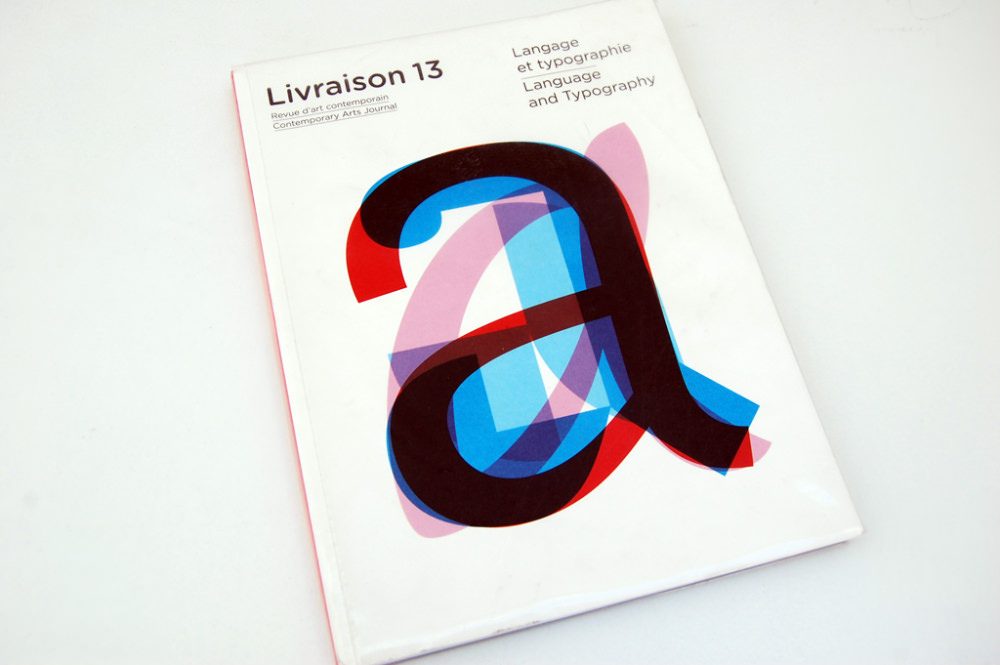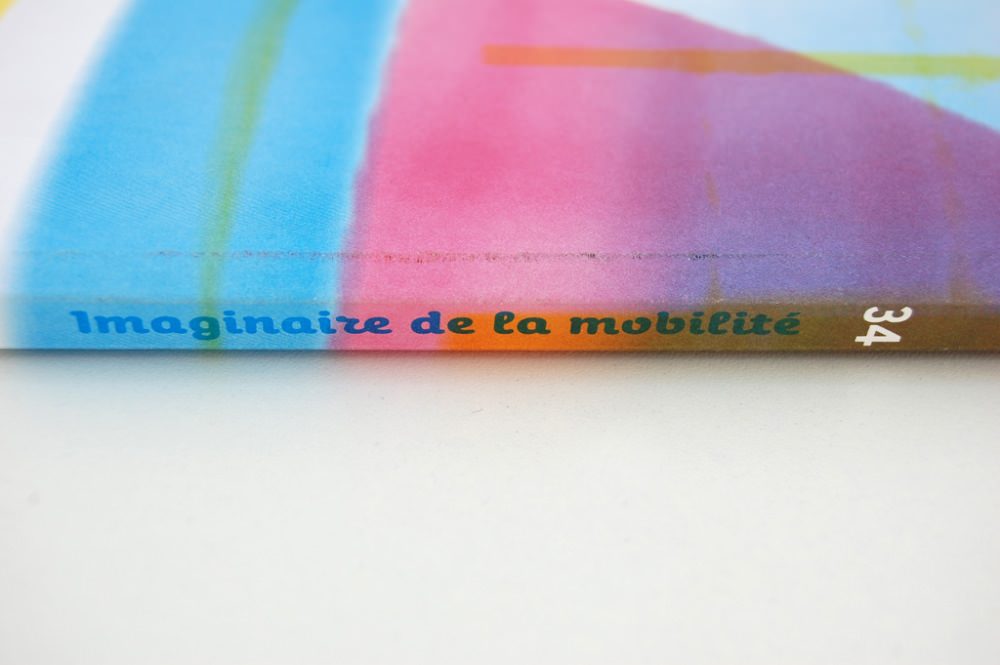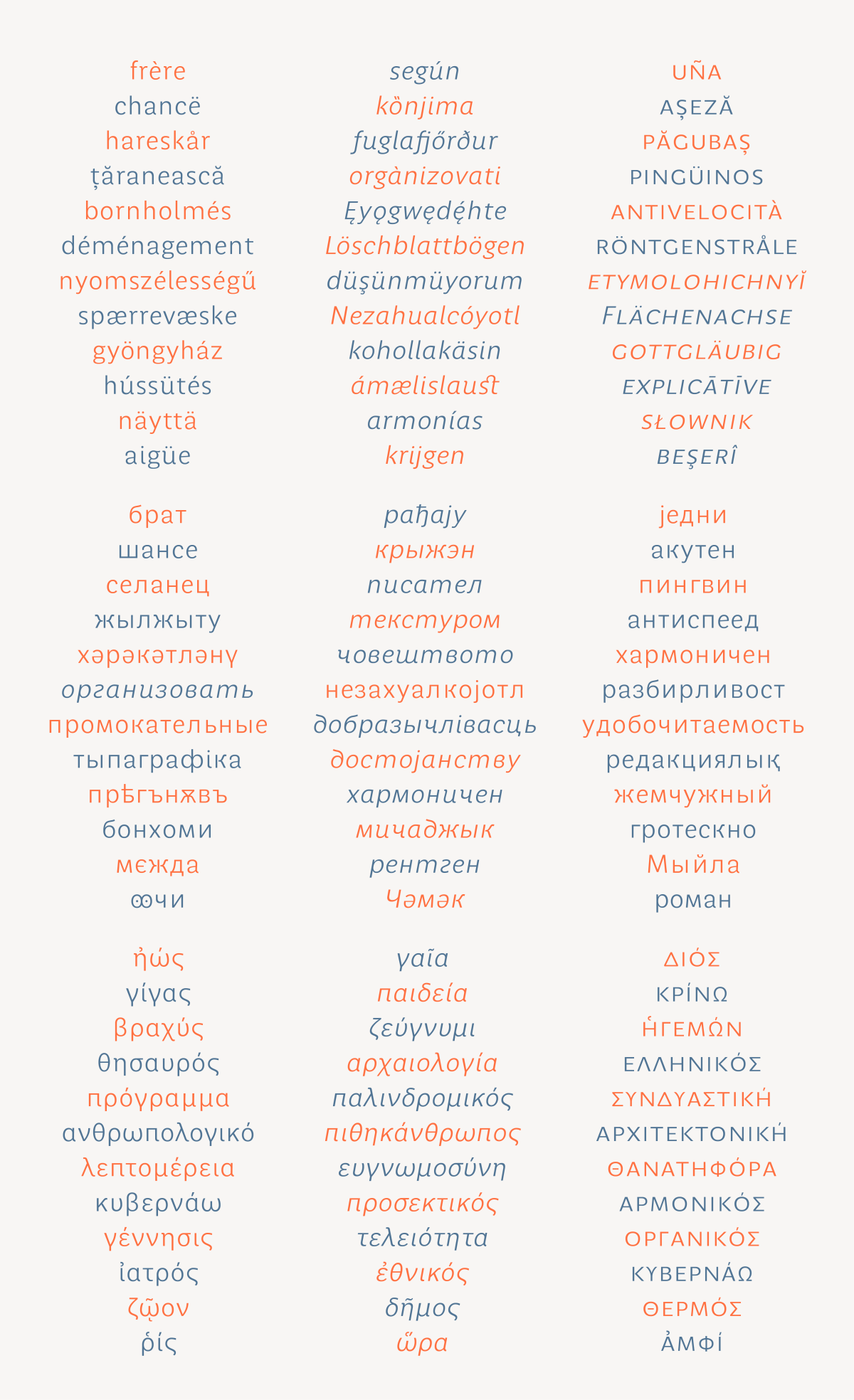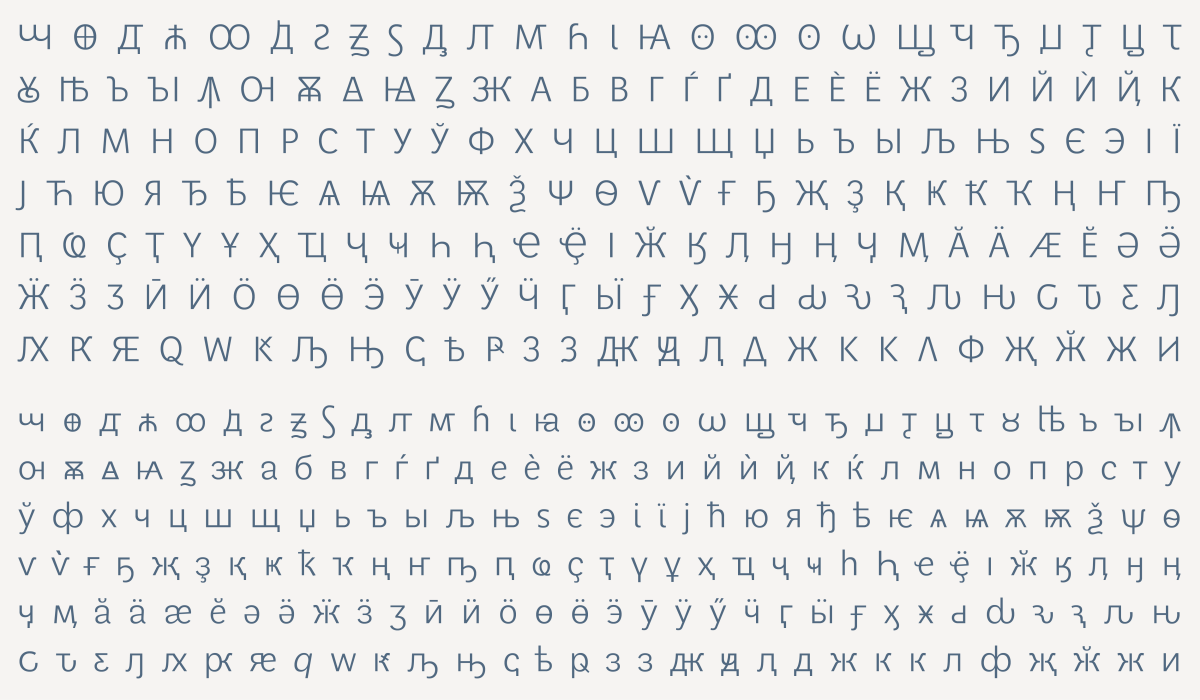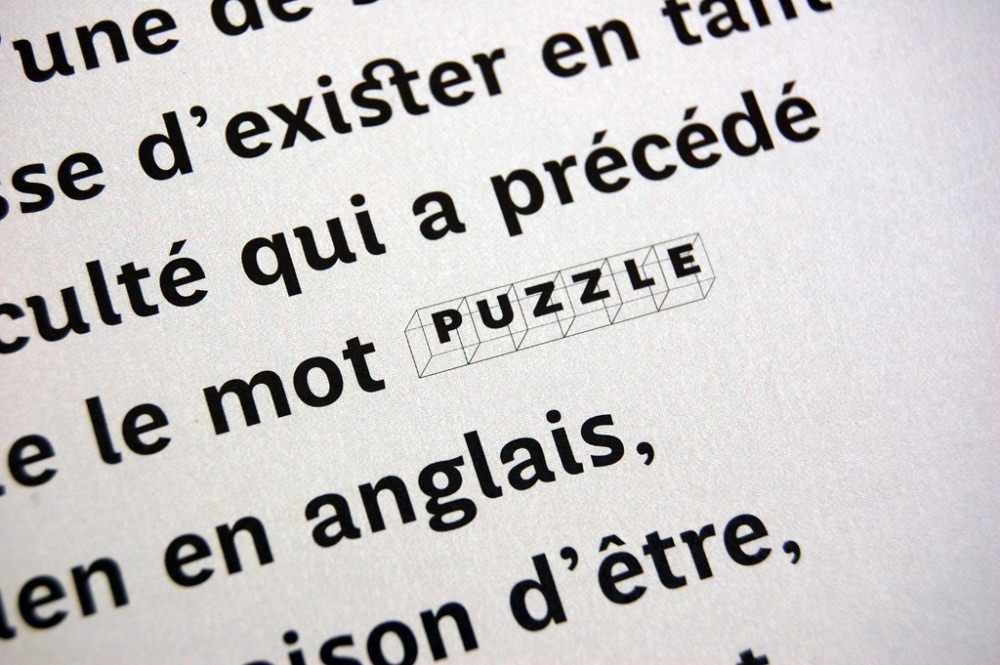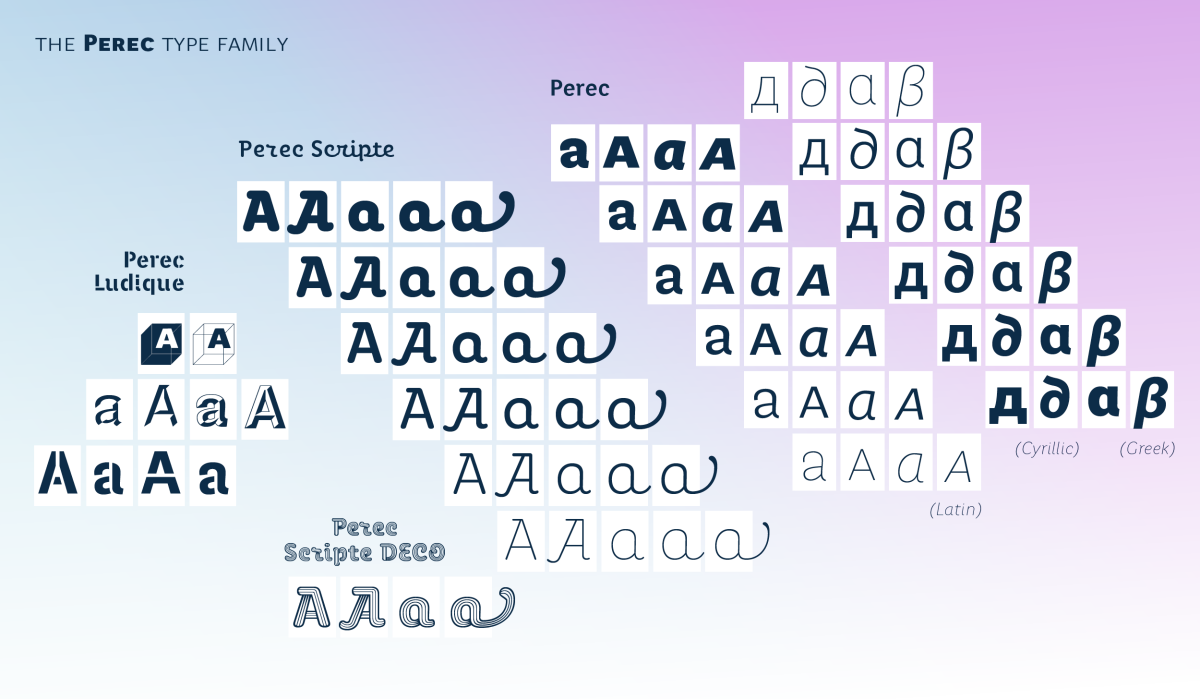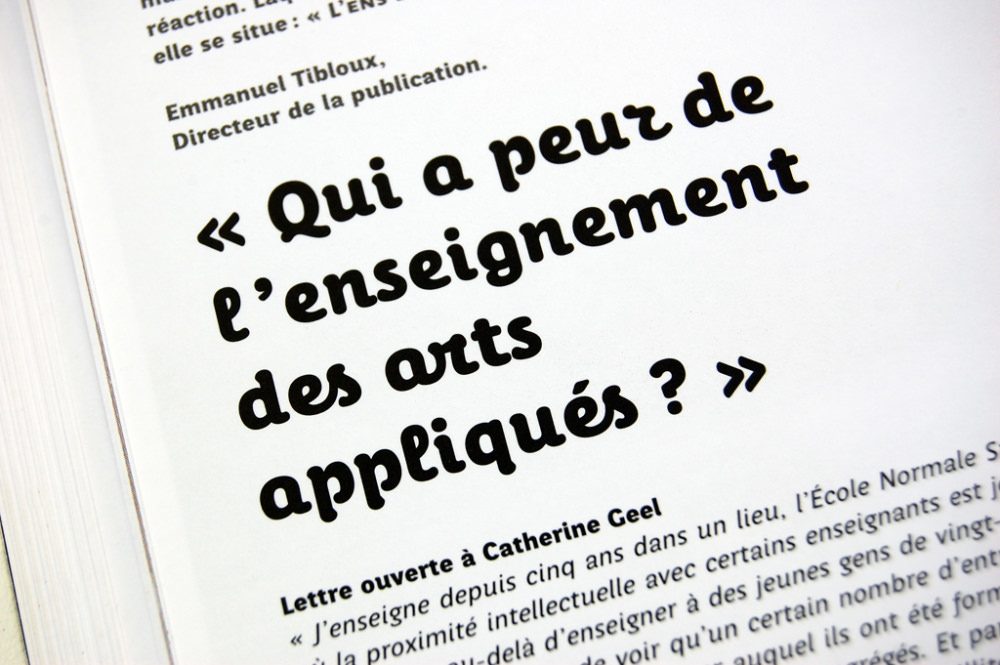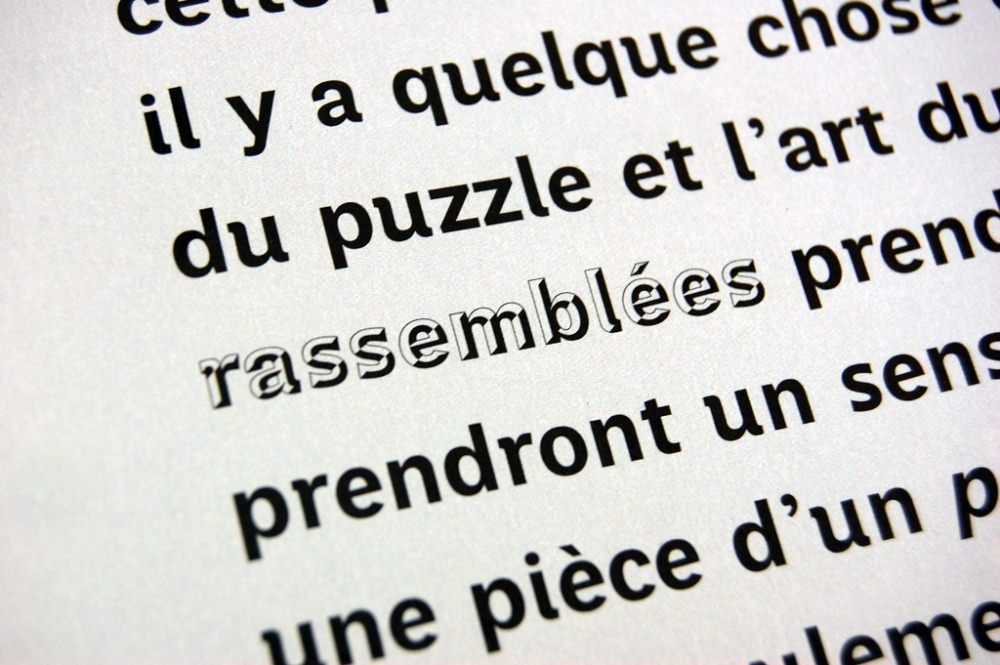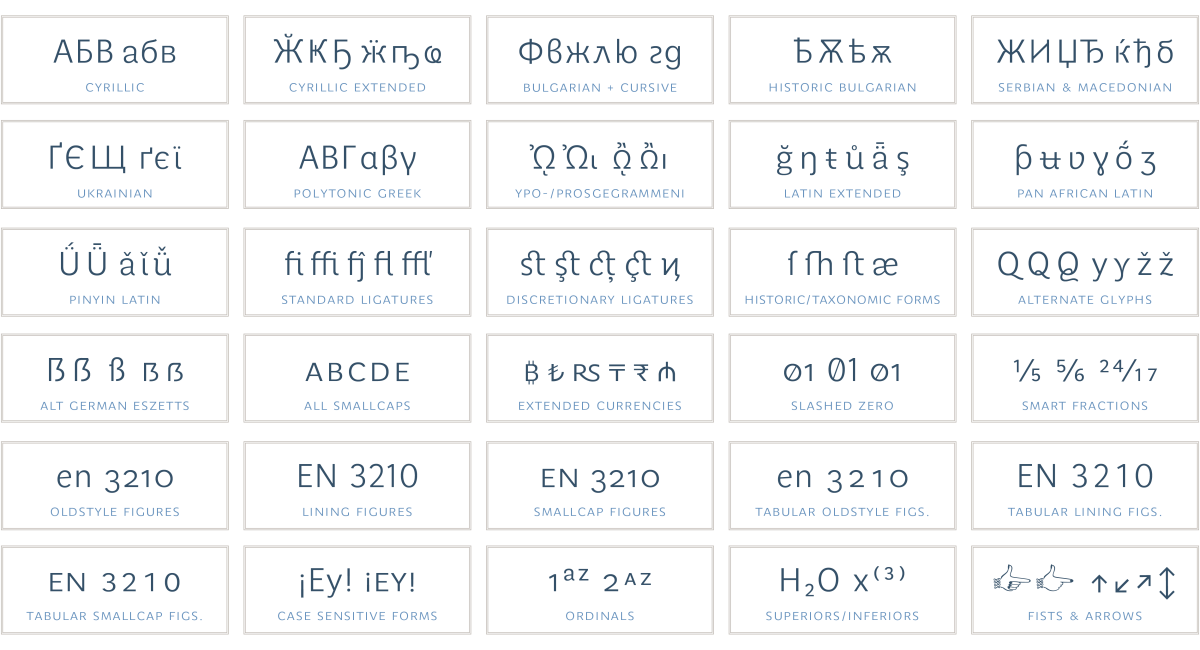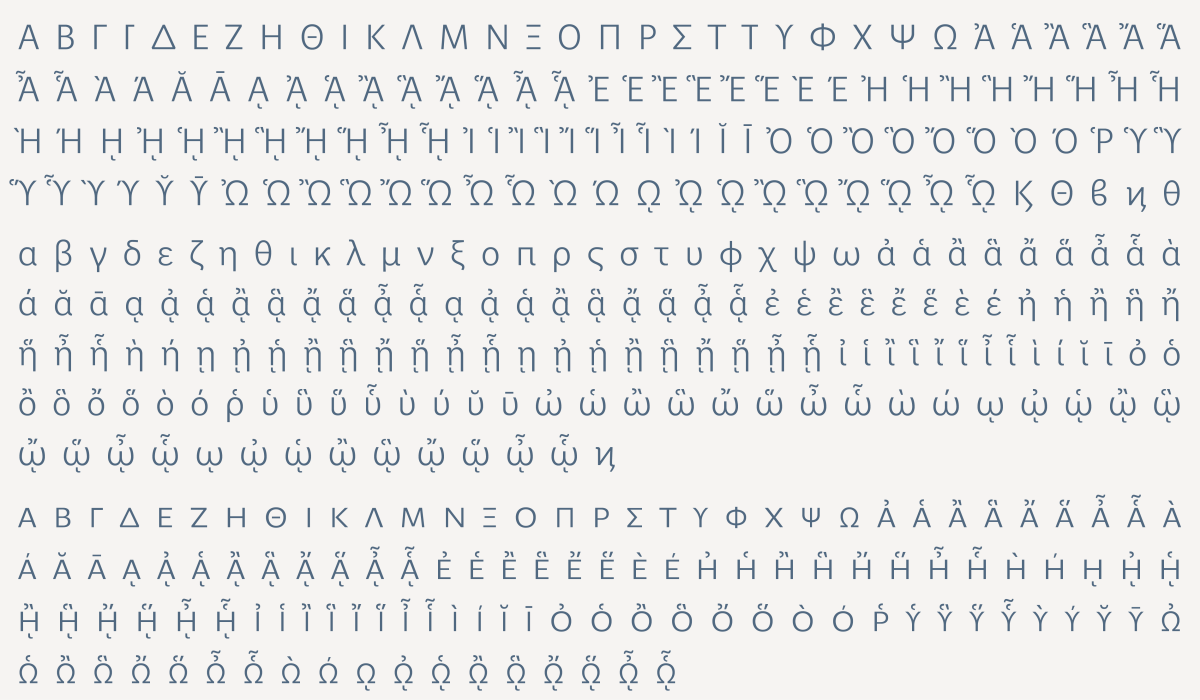
Perec 2.0: our multi-faceted, unclassifiable and versatile sans serif typeface, now extended
For those of you who know us, you know that we like projects that are hard to classify. This is one of them, and it is one that we like very much, the Perec family: a sans grotesque that has a lot to offer. From its origin it responded to quite complex artistic and conceptual criteria, as a tribute to the multifaceted work of French writer Georges Perec, but over time with the addition of new styles it has become a versatile type system offering a diverse palette of easily combinable forms. Here we share with you a brief overview of the design process and the cuisine of these fonts. Just remember that new Perec styles are being prepared! It is an ongoing project. It could not be otherwise, Georges Perec would have wanted it that way.
Georges Perec
Inspiration: Georges Perec [1936-1982]
Georges Perec. French poet, novelist, film maker, scientific documentalist, player of go, music composer, lover of puzzles, parachutist, autor of the most difficult crosswords, is one of the most singular authors of the 20th century. His works radiate an invigorating ludic sense. His meticulous stories, acrobatically run across all literary genres and all epoques. Among his celebrated texts you’ll find: Life: A User’s Manual (La Vie mode d’emploi, 1978), A Gallery Portrait (Un Cabinet d’amateur, 1979), and A Void (La Disparition, 1969), a novel written without ever using the letter “e”).
The Perec type design was born as a sans serif grotesque. However, it quickly spread to other styles, both formal and informal, to fit the multicolored and unclassifiable nature of this unique author’s writings.
The regular Perec family is composed of roman and italic with corresponding smallcaps all of which is declined in six complete weights. It now includes Cyrillic extended [full Bulgarian, Macedonian, Serbian, Ukrainian] and complete Polytonic Greek [with ypo- and prosgegrammeni]. The Latin version now includes full Europe-based accents plus PanAfrican and Pinyin, many ligatures and historical forms, full number series, extended currencies and more.
Perec Ludique is the relaxed series for graphic impact or for more creative settings. Perec Scripte with bound & unbound styles comes in 6 weights plus a special Deco version. And a rounded sanserif version, Perec Lunatique, is still under preparation.
OuLiPo!
The Ouvroir de Littérature Potentielle, a bunch of mathematicians & writers leaded by Raymond Queneau & Francois Le Lionnais, pursued a radical innovation of literature by employing imaginative methods based on the idea of self-imposing constraints or conditioners. Naturally Georges Perec was a member of OuLiPo. And Italo Calvino was a member too.
Widely known picture of a meeting of the OuLiPo members in Boulogne. Standing up right in the middle is Georges Perec. And in the extreme left sitting down is Italo Calvino.
My own self-imposed constraint
When deciding which typographic genre should evoke Georges Perec’s work, I remembered this idea of constraint followed by the Oulipians. The question was: “Can I see a valuable self-imposing constraint for this project?” On one hand, in order to embrace Perec’s many meanings and playful searches, I would have clearly considered a type genre with high possibilities of expressiveness. Thus the tightest constraint was obvious: choosing a type genre where expressiveness would be harder to obtain! A geometric sanserif? I finally opted for a sans grotesque, as it offered a little more design possibilities than a geometric one, although it was still tight when it came to expressiveness.
What makes a sans grotesque grotesque? Halfway between the geometric sanserif and the humanist sanserif, the grotesque offers a rather primitive look and a certain rudeness. I tried to make a grotesque that without losing its rough appearance could be a little more delicate in drawing, a sort of well-mannered monster.
Versatility
All that said, while designing Perec I’ve tried to make a versatile type, that could be used at a wide range of applications. Yes, it has a more delicate spirit tan a normal grotesque, therefore it will look elegant and stylish in large sizes. But its strength and the openness of its counterforms give it good legibility in text bodies.
Perec also has a good range of weights, that is not so many weights that you get lost in the font menu, but the right amount of weights where you can clearly tell the difference between one and the other. This helps, on the one hand, to establish clear hierarchies on the page and, on the other hand, to achieve subtle color textures in the text blocks, all of which makes for good readability and a pleasant reading experience.
Perec now can speak more than 200 languages within the Latin script. And the Perec PanEuro includes complete Cyrillics and polytonic Greek. Check the specimen for more details.
Perec Cyrillics include upright & cursive with archaic letters and all language localisations for Bulgarian [plus cursive Bulgarian, historic Bulgarian] Serbian [plus cursive], Macedonian and Ukrainian.
Perec Greeks include the polytonic repertoire with complete upright, cursive and small cap styles.
Finally, for the discerning designer, Perec includes all the useful OpenType features and attributes that make it powerful for typographic editing.
Here some pages from two French magazines that used early versions of Perec fonts. Livraison, a contemporary art magazine from Strasbourg; and Azimuts, made by the students of the art & design school of Saint-Étienne.